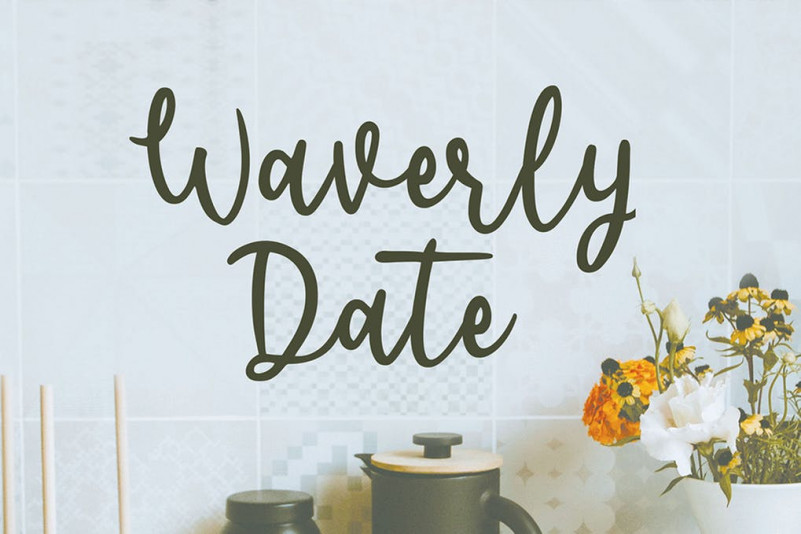
Waverly Date Font
Waverly Date is fabulously fun yet elegant script font, allowing you to create beautiful hand-made typography in an instant. With extra bouncy curves & loops, Waverly Date is guaranteed to make your text stand out – perfect for logos, printed quotes, invitations, cards, product packaging, headers and whatever your imagination holds.